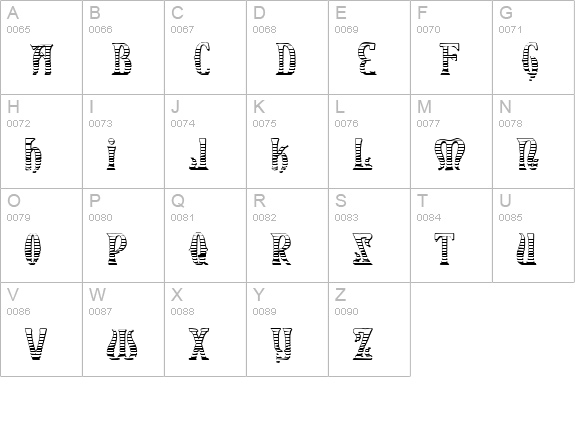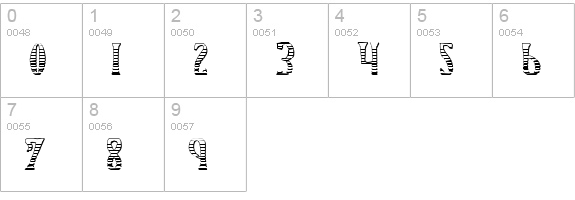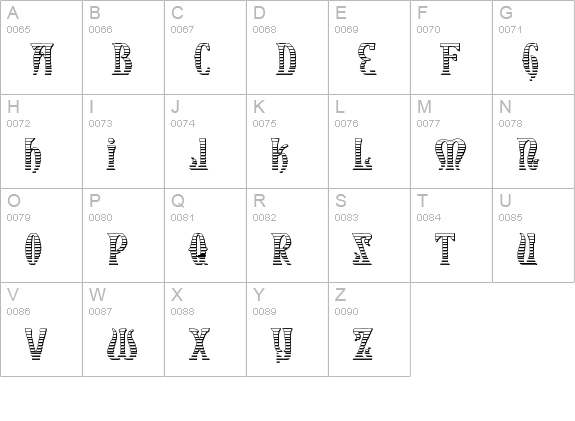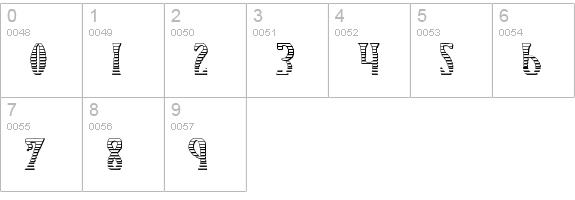
Xiphos Gradient Castle Font Details
Xiphos Gradient Castle font is a stunning display typeface that exudes elegance and sophistication. With its unique gradient effect and sharp edges, this font brings a modern and stylish touch to any design project. Whether you're creating logos, posters, or branding materials, Xiphos Gradient Castle font will surely make your work stand out. The best part is that Xiphos Gradient Castle font is completely free to download at FontsMarket.com. This means you can access this beautiful font without any cost and use it in your personal or commercial projects. Don't miss out on the opportunity to enhance your designs with the striking beauty of Xiphos Gradient Castle font - download it now and elevate your creative endeavors to new heights.